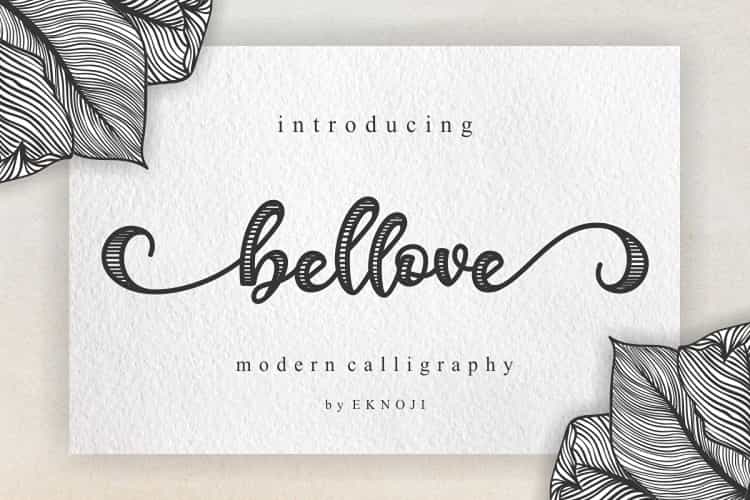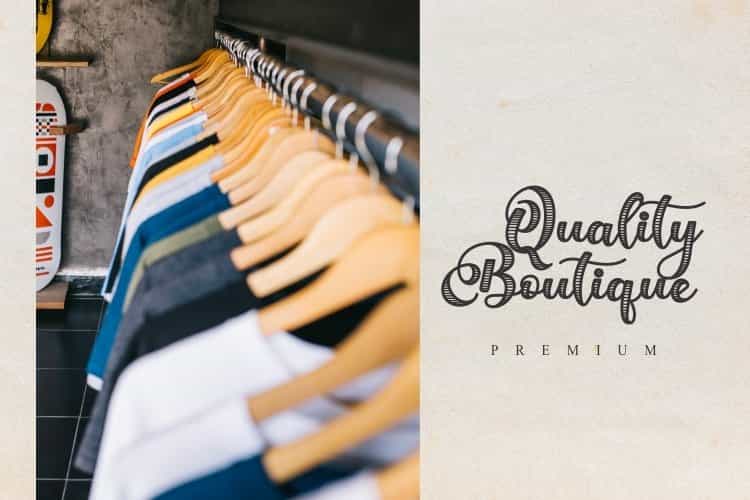
Bellove Font is contemporary calligraphy as well as a retro vibes in its. Inspired by vibrant culture and retro style, it has an exquisite design, badges and sign design. This font is ideal for creative projects like posters, logos. invitation cards packaging, badges and packaging logotype and apparel design, Label and more.